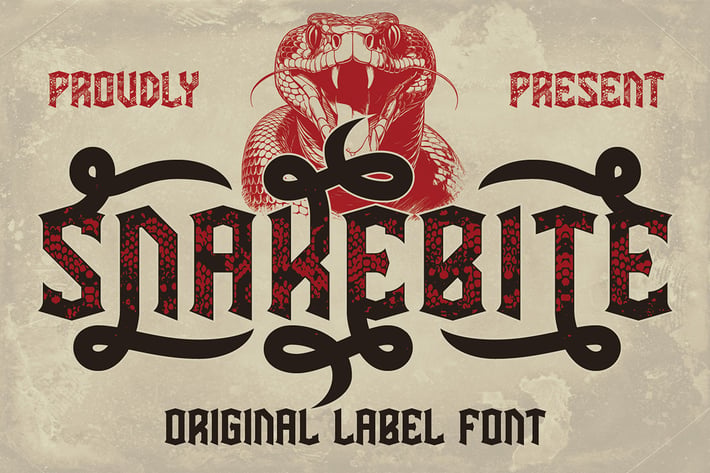
Snakebite Blackletter Label Font
Unique, decorative, vintage, fantasy, monogram, decorative & blackletter label semi-serif font. Comes with multilingual support and alternates + 2 extra textured font versions - great for your new logo, monogram or branding project.
- 3 font versions - regular & textured & textured effect
- Multilingual support and alternates
- Great for your new logo, monogram or branding project